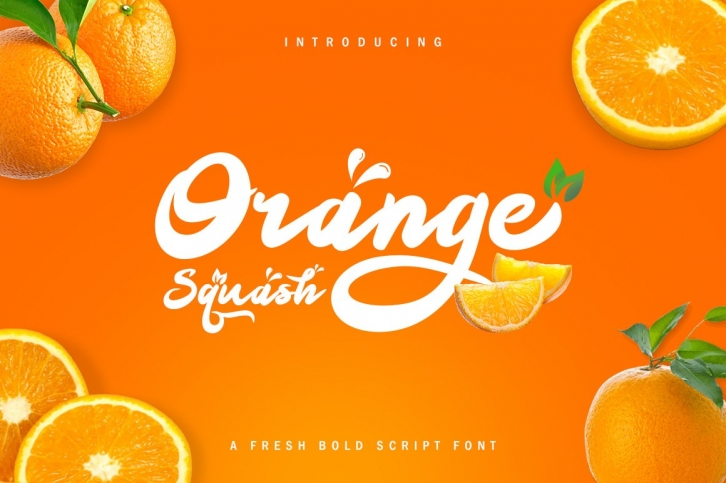
Orange Squash Script Font is a fun bold script font, fresh & modern style . Orange Squash Script Font suitable for logo, branding, greeting card, poster and any design that you create.
- Punctuation & Numeral
- Support PUA Unicode
- Support Multilingual
- Stylistic alternates with number 1 & 2 after lowercase
You can access alternate with add number 1 & 2, after letter. all lowercase have one stylistic alternate. (working only on photoshop, illustrator & coreldraw)
For example: you can write Ora1nge2 on the tester box